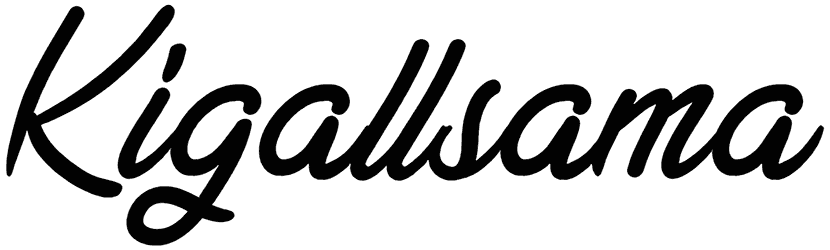
Kigallsama Font
As a matter of fact, some graphic designers easily overlook the unbelievable potential of a script font such as Kigallsama in leveling up the visibility and efficiency of their artwork, including digital brochures, business cards, headlines, greeting cards, or social media posts.
This lovely masterpiece provides aesthetics without losing its solidity, thus it evokes the feeling of drama, personalization, professionalism, or softness in the audience’s minds.